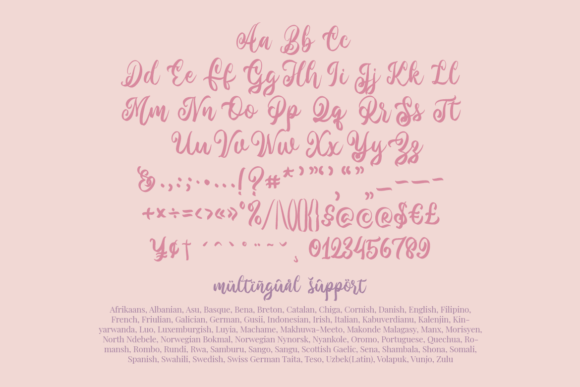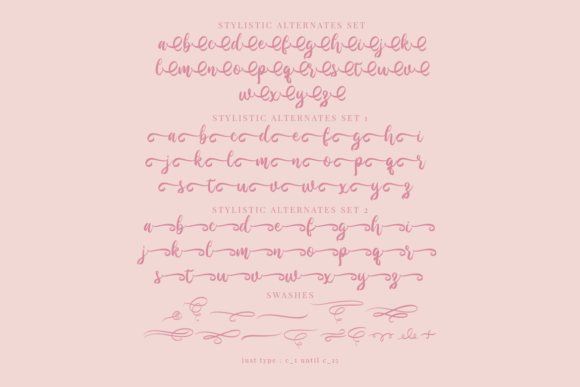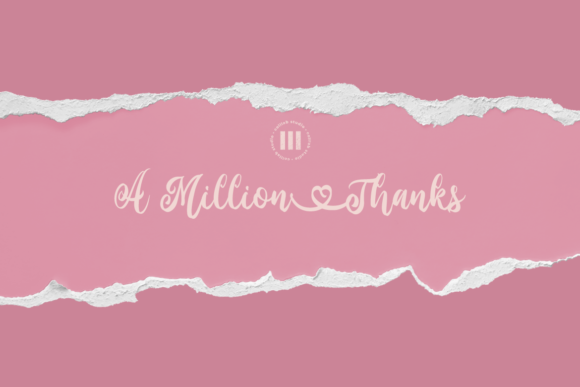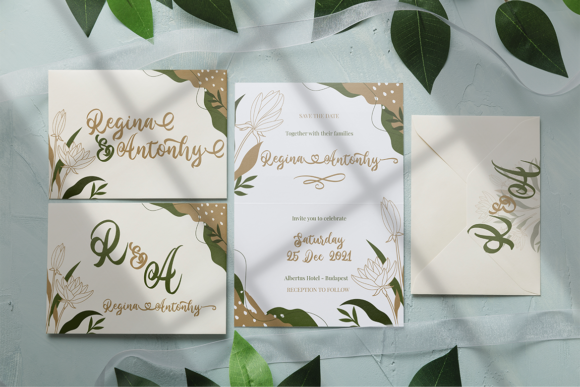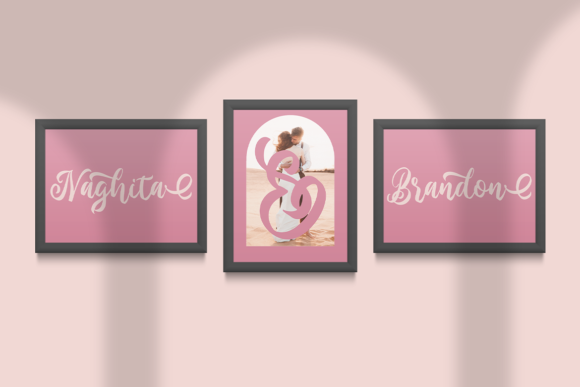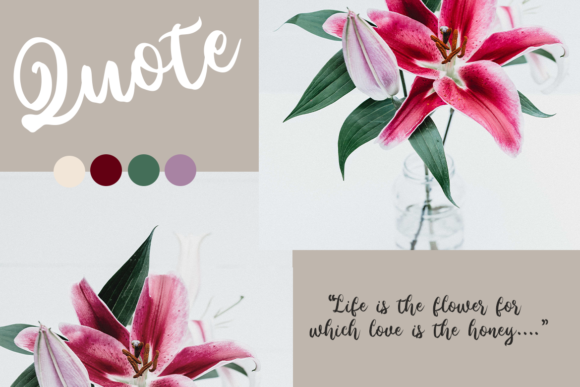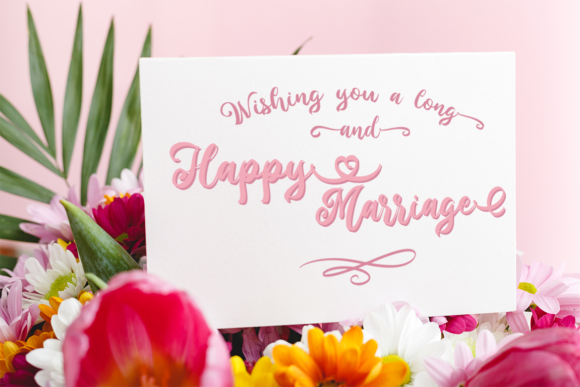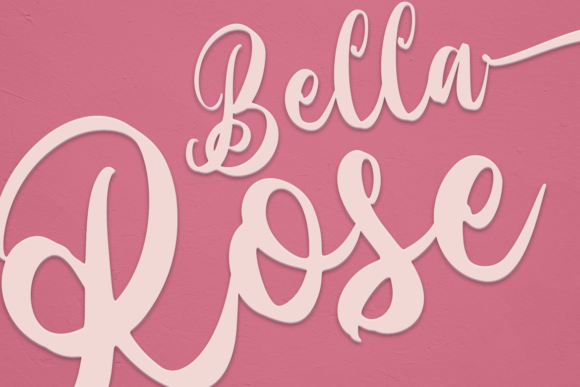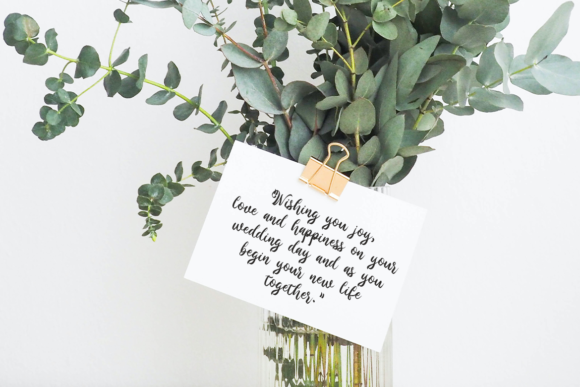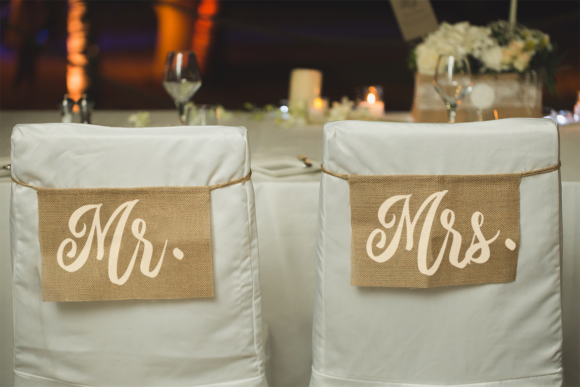
Weigela Font
About Weigela Font
Weigela is a delicate and cursive handwritten font. It will add a luxury spark to any design project that you wish to create! This font is PUA encoded which means you can access all of the amazing glyphs and ligatures with ease!